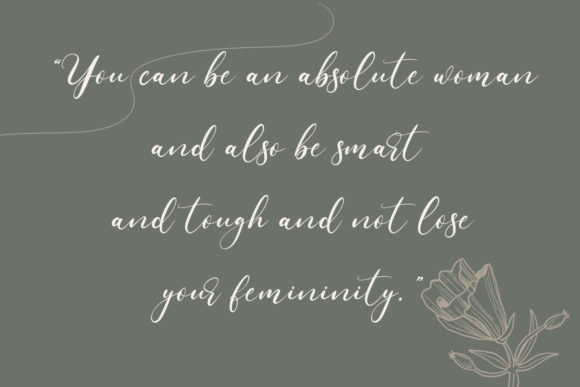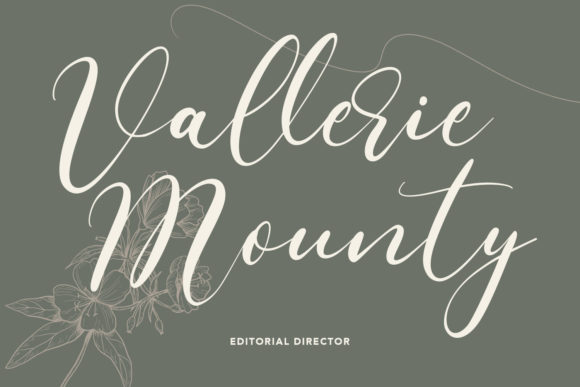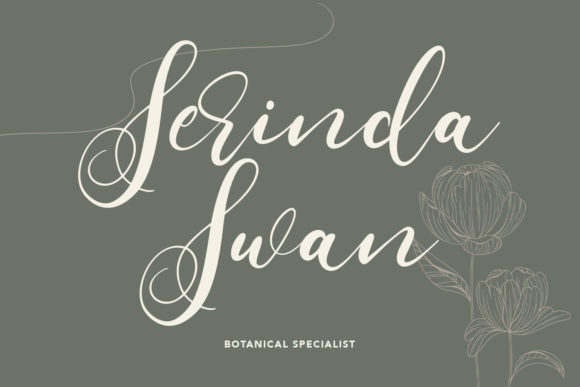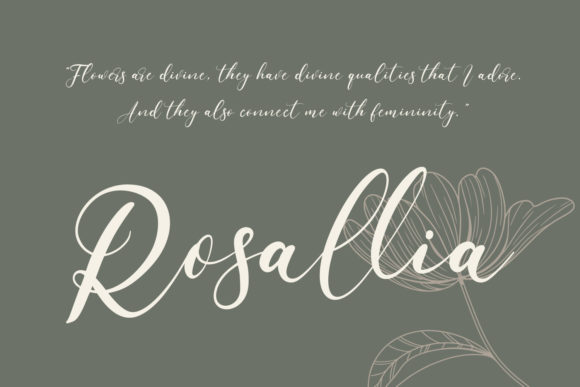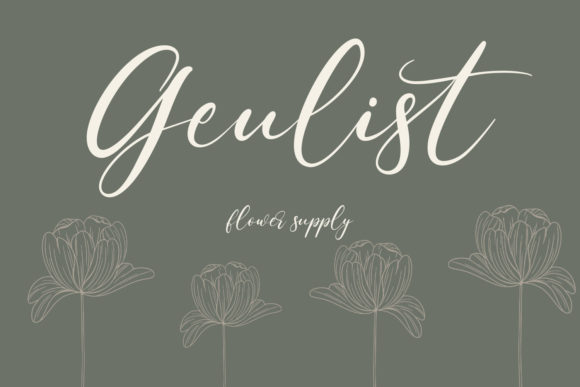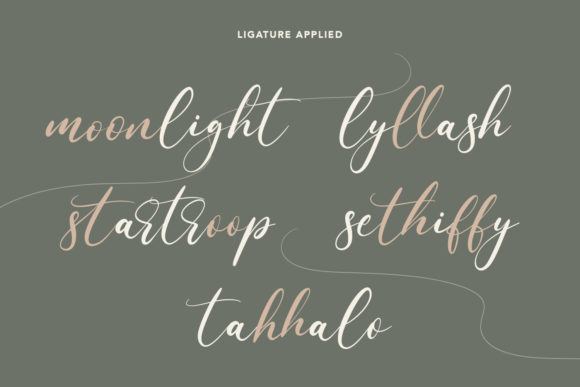
Introducing Allisha Croft Font: Elevate Your Design with Luxury and Elegance
Are you a designer or crafter looking for a font that can add a touch of luxury and sophistication to your projects? Look no further than the Allisha Croft Font. This beautiful light handwritten font is designed to make a stunning impact, and its unique feel is sure to elevate your designs to the next level.
The Allisha Croft Font: A Unique and Elegant Addition to Your Designs
The Allisha Croft Font is a gorgeous light handwritten font that exudes elegance and sophistication. Its delicate strokes and flowing curves make it perfect for a wide range of design projects, from wedding invitations and branding materials to packaging and digital media. With its unique feel and luxurious vibe, this font is sure to add a spark of creativity to any project.
What Makes the Allisha Croft Font So Special?
So, what sets the Allisha Croft Font apart from other fonts on the market? Here are just a few reasons why this font is a standout:
- Unique feel: The Allisha Croft Font has a distinctive, hand-crafted feel that sets it apart from more traditional fonts. Its flowing curves and delicate strokes give it a luxurious, high-end feel that’s perfect for designs that require a touch of elegance.
- Light and airy: The light weight of the Allisha Croft Font makes it perfect for designs where you want to add a touch of sophistication without overpowering the other elements. It’s ideal for use in headings, titles, and other design elements where you want to make a statement.
- Highly versatile: The Allisha Croft Font is incredibly versatile, making it suitable for use in a wide range of design projects. Whether you’re working on a wedding invitation, a branding campaign, or a digital media project, this font is sure to fit the bill.
How to Use the Allisha Croft Font in Your Designs
Ready to start using the Allisha Croft Font in your designs? Here are a few tips to get you started:
- Pair it with bold fonts: The light weight of the Allisha Croft Font makes it perfect for pairing with bolder fonts. Try pairing it with a bold sans-serif font for a striking contrast.
- Use it for headings: The Allisha Croft Font is perfect for use in headings and titles, where its elegant curves and flowing strokes can really shine.
- Add some texture: To really make the Allisha Croft Font pop, try adding some texture to your design. A subtle texture can help to give your design a more organic, hand-crafted feel.
Why Designers and Crafters Love the Allisha Croft Font
So, why do designers and crafters love the Allisha Croft Font? Here are just a few reasons:
- Elegance: The Allisha Croft Font adds a touch of elegance and sophistication to any design project. Its luxurious feel makes it perfect for high-end branding campaigns, wedding invitations, and other designs where you want to make a statement.
- Versatility: The Allisha Croft Font is incredibly versatile, making it suitable for use in a wide range of design projects. Whether you’re working on a digital media project or a print design, this font is sure to fit the bill.
- Easy to read: Despite its elegant, cursive feel, the Allisha Croft Font is surprisingly easy to read. This makes it perfect for use in body text, as well as headings and titles.
In conclusion, the Allisha Croft Font is a beautiful, elegant addition to any design project. Its unique feel, luxurious vibe, and versatility make it perfect for a wide range of designs, from wedding invitations and branding materials to packaging and digital media. Whether you’re a designer or crafter, this font is sure to elevate your designs to the next level. So why wait? Download the Allisha Croft Font today and start adding a touch of luxury and sophistication to your designs!